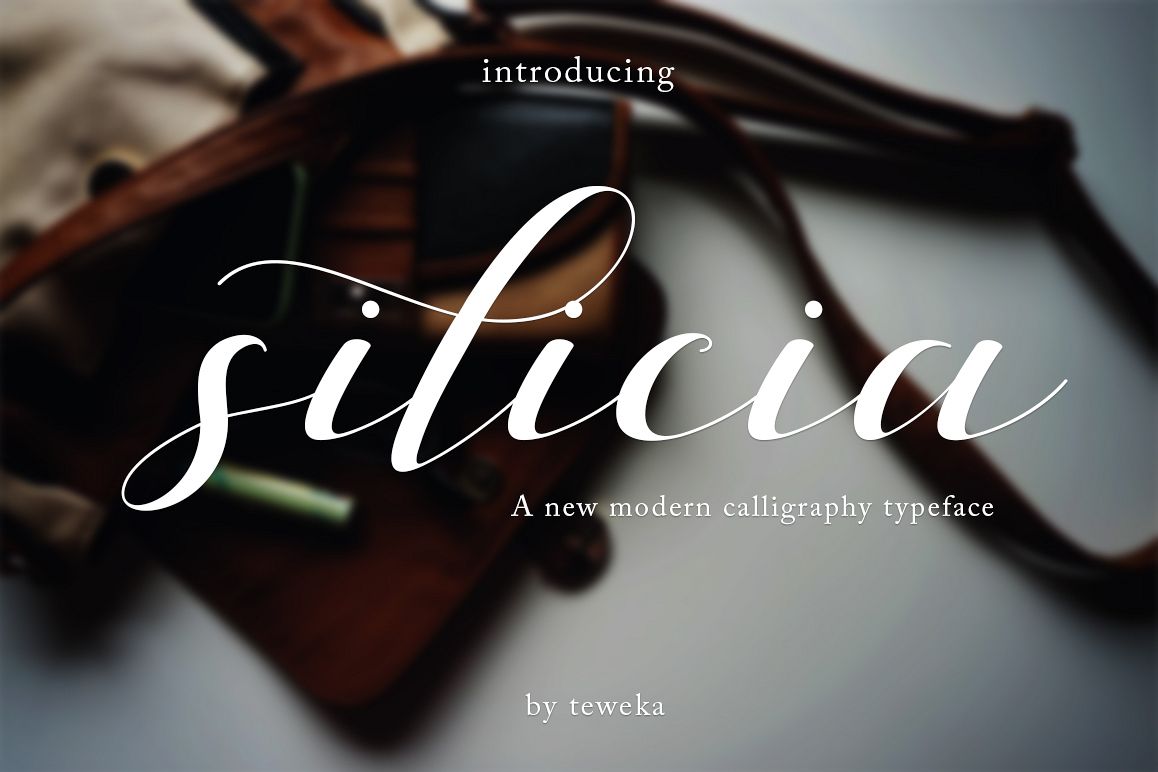
silicia script
silicia
Introducing
silicia script
silicia script a new fresh & modern script with a handmade
calligraphy style, decorative characters and a dancing baseline! So
beautiful on invitation like greeting cards, branding materials,
business cards, quotes, posters, and more!!
silicia script come with 303 glyphs. The alternative characters were
divided into several Open Type features such as Swash, Stylistic Sets,